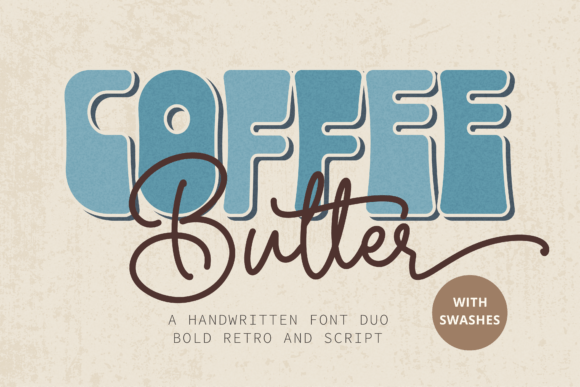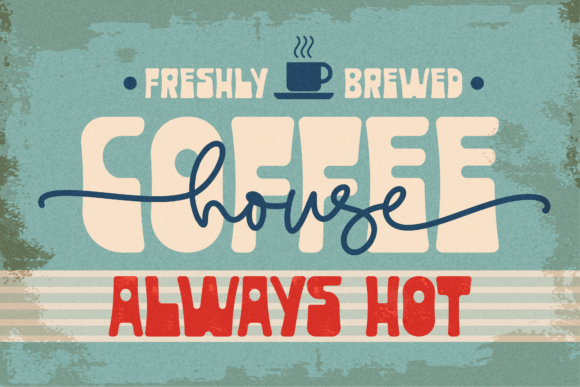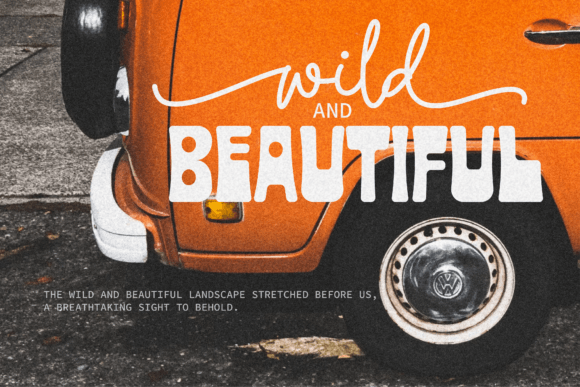
Coffee Butter Font: Groovy Retro Script & Display Typography
About the Coffee Butter Font
Crafted with precision, the Coffee Butter Font is ready to bring your ideas to life. Coffee Butter is a cool retro duo font (display and monoline script). It is perfect for any hippie design that requires a groovy look and it’s guaranteed to make an impact.
Coffee Butter excels in display applications such as logos, posters, and short headlines where its retro charm and bold forms can shine. The monoline script is ideal for short taglines or signatures, adding a touch of vintage flair. However, its low x-height and decorative nature make it unsuitable for body text or lengthy passages. Avoid using it in UI contexts requiring high readability.
Its personality is best described as playful yet retro, with a touch of 1970s boldness. This makes it perfect for brands aiming for a vintage, bohemian, or subtly rebellious aesthetic – think artisanal coffee shops, record labels, or clothing brands with a retro vibe.
Pairing Coffee Butter with a clean sans-serif like Montserrat for body text provides excellent contrast and readability. For a more vintage feel, consider a geometric sans-serif such as Futura or a classic serif like Garamond. A delicate script font could also complement its character for secondary text elements.
Coffee Butter Font Usage Examples
Coffee Butter Font Example